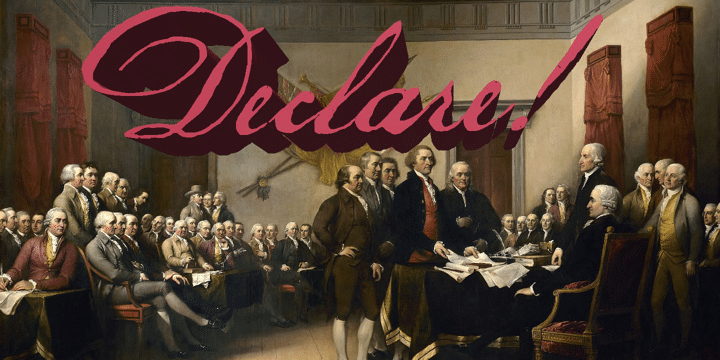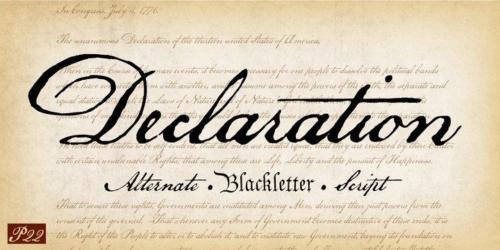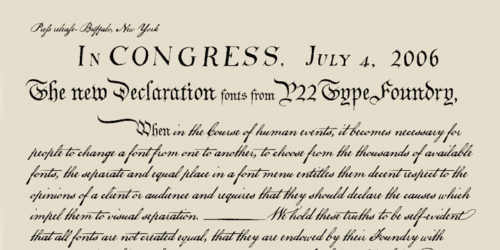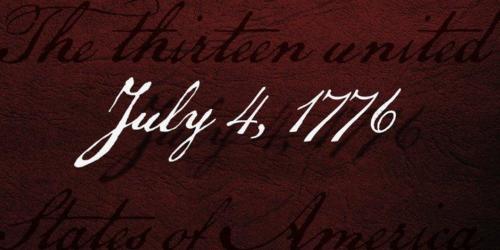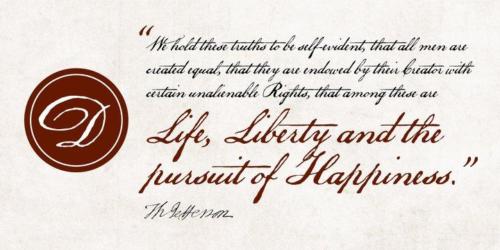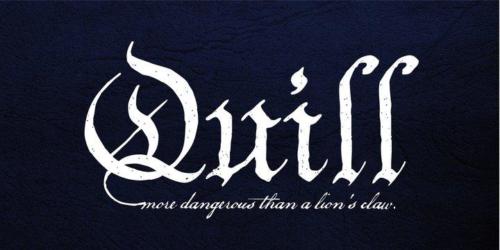
The new Declaration font set from P22 features two lettering fonts based on the Declaration of Independence of the United States of America.
A script font that features the look of classic 18th Century penmanship, with a slightly irregular edge, as found on documents made with ink quill pens on vellum or parchment.
The accompanying Blackletter font is also derived from the Declaration of Independence as it was used for emphasis and of course the famous document title itself.
A third font, which features the signatures of the signers of the Declaration of Independence, is also included.